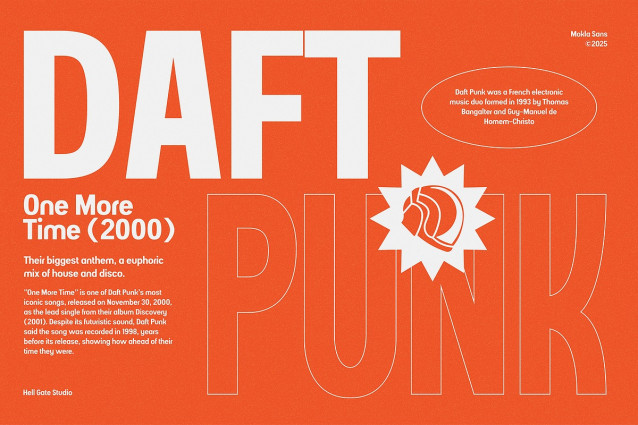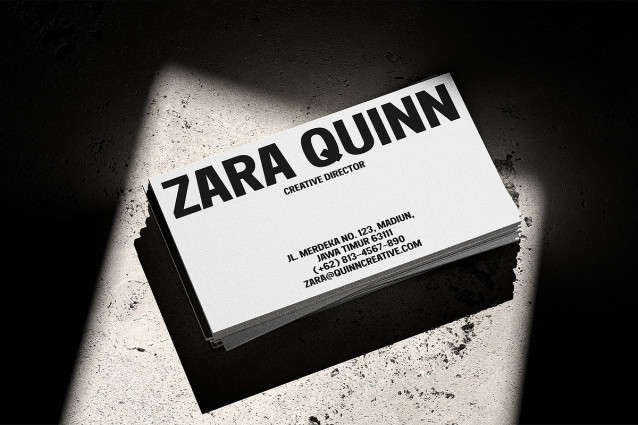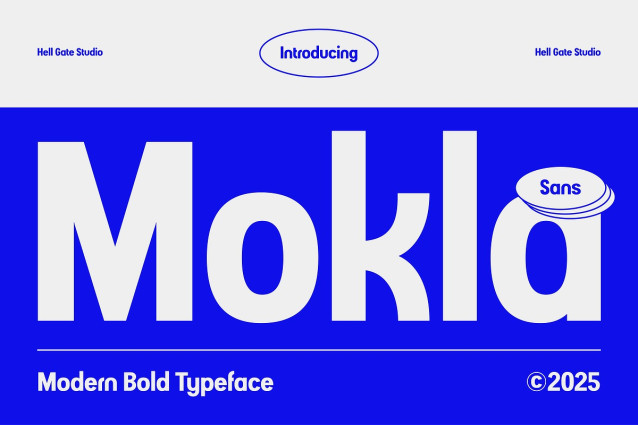
Mokla Font
Mokla Font is a meticulous modern bold typeface, painstakingly designed to augment any modern-themed project. Its bold and vigorous aesthetics ensure your project stands out, embodying resilience and contemporary charm.